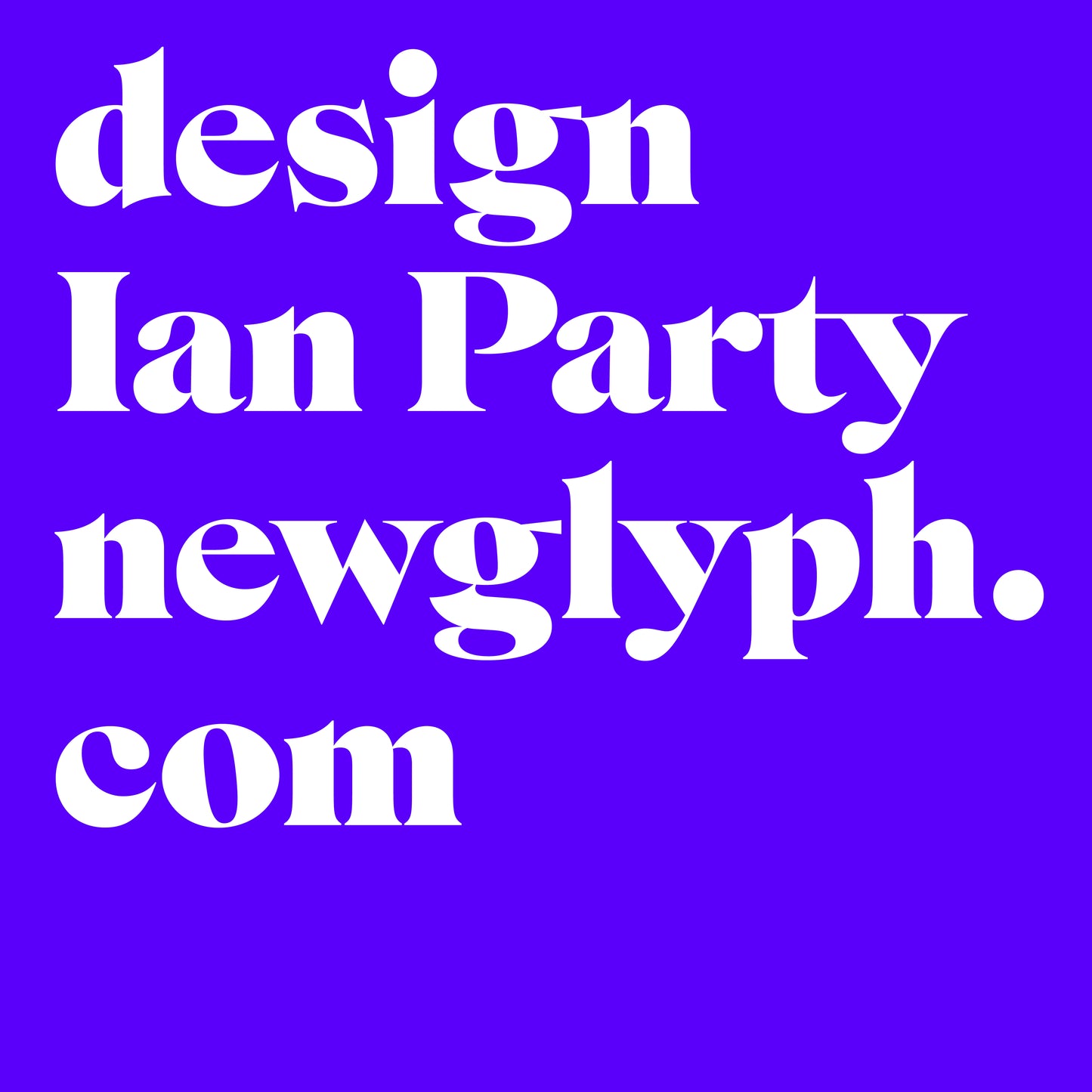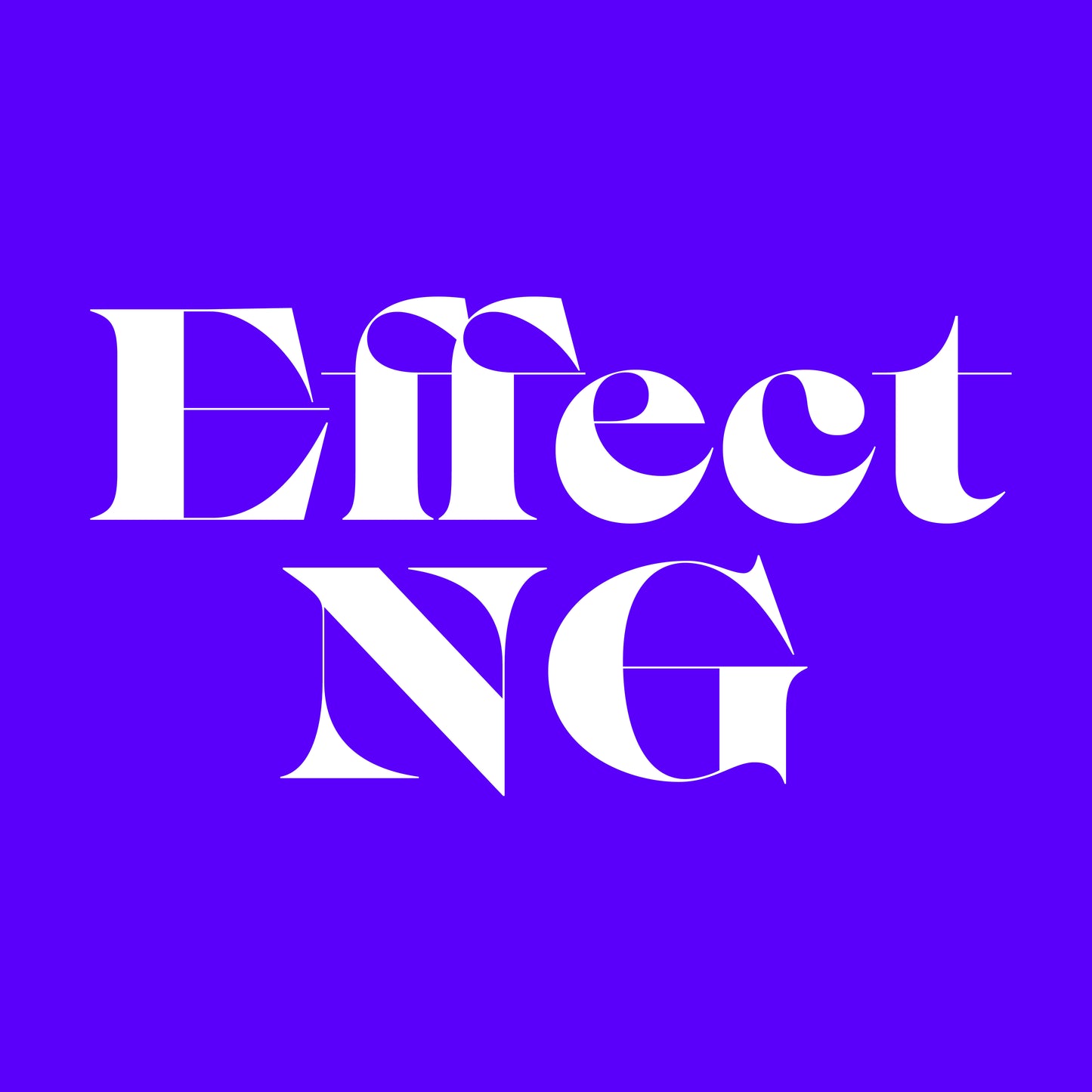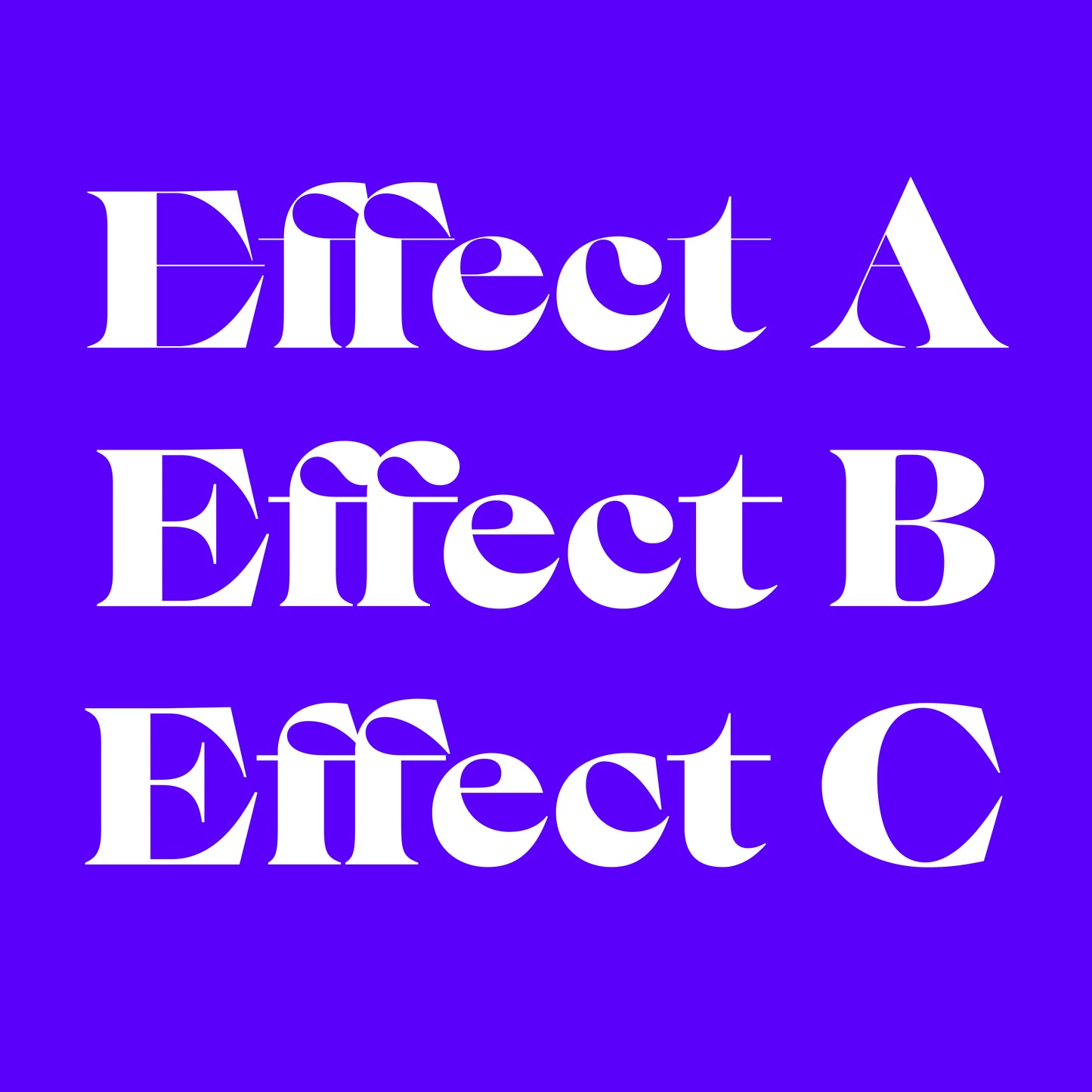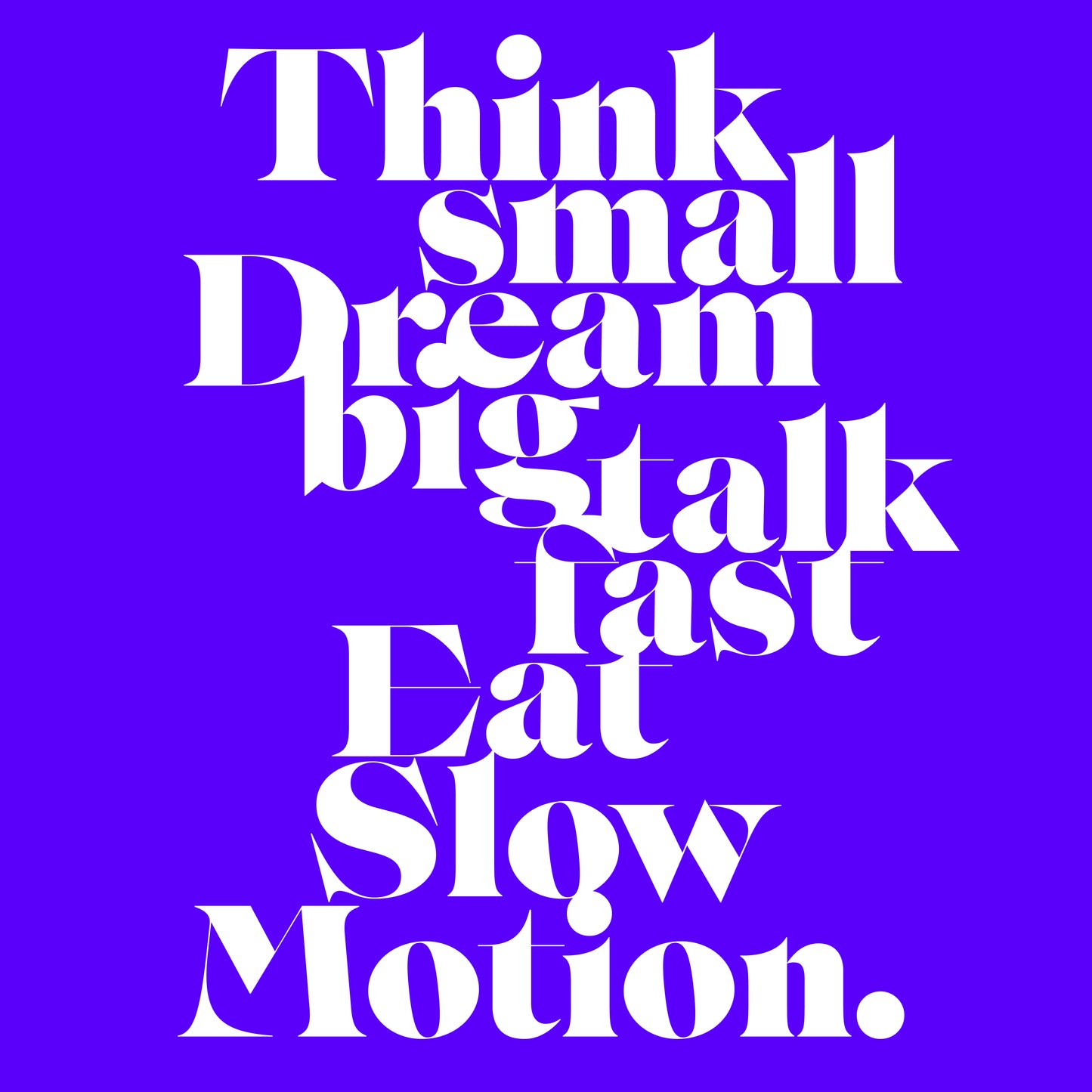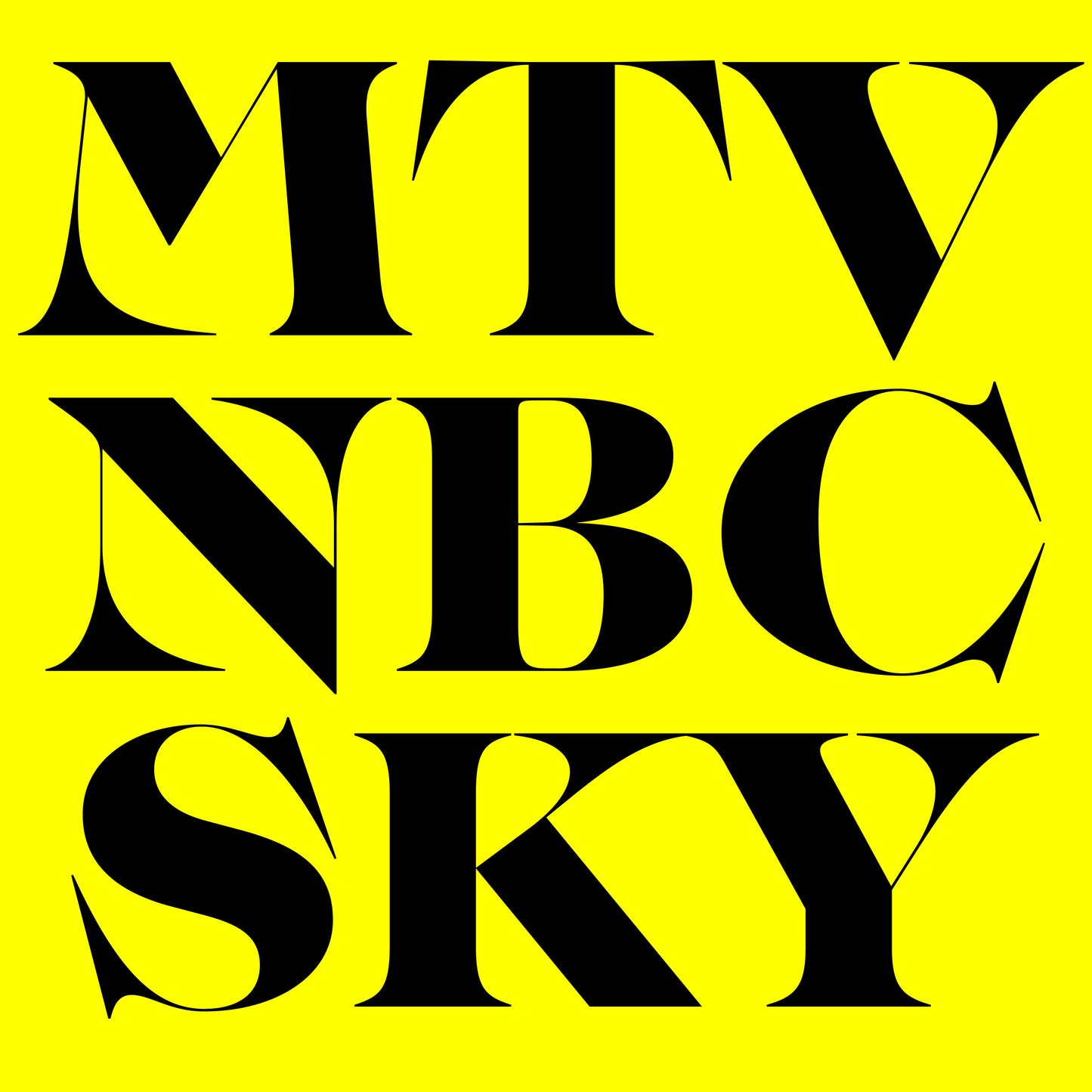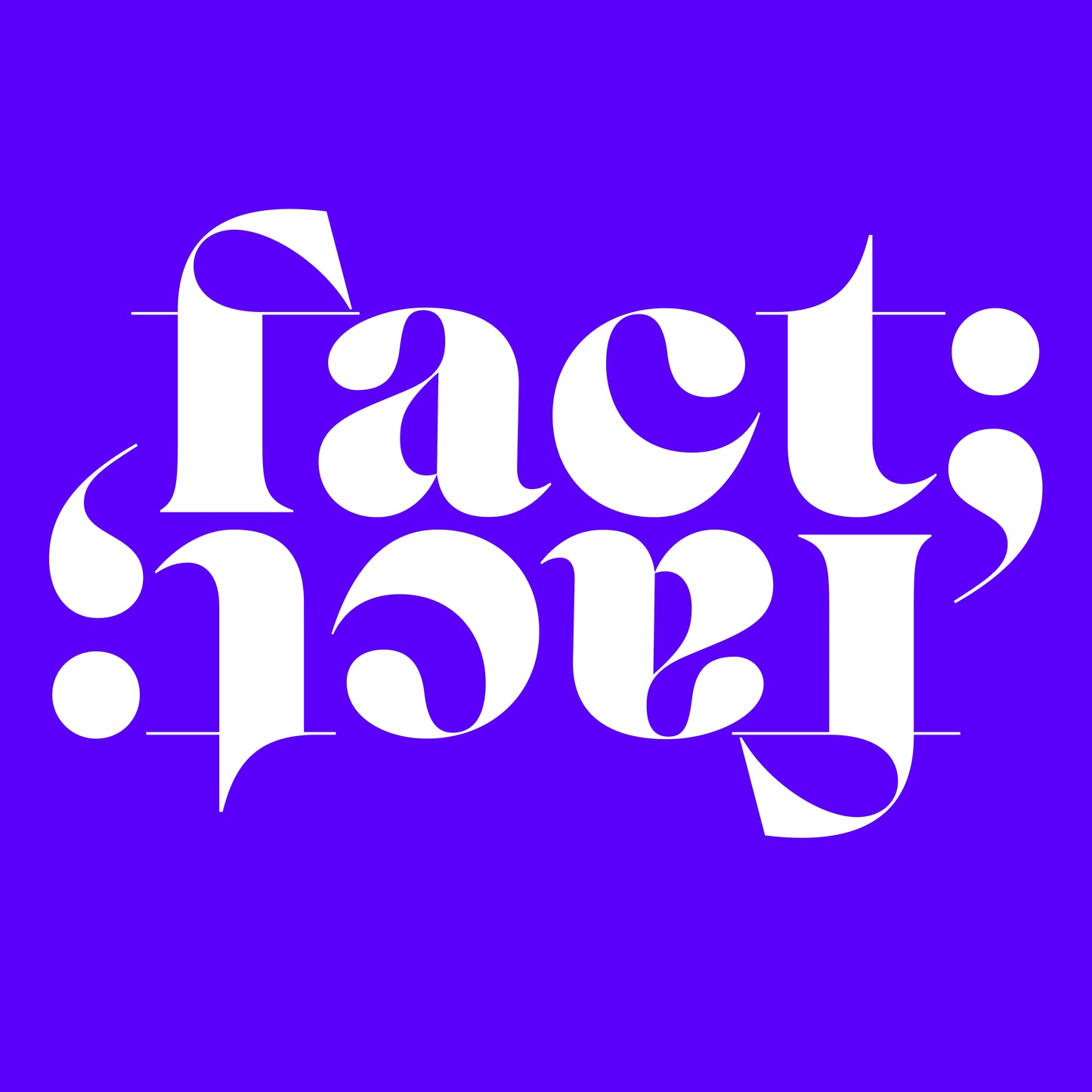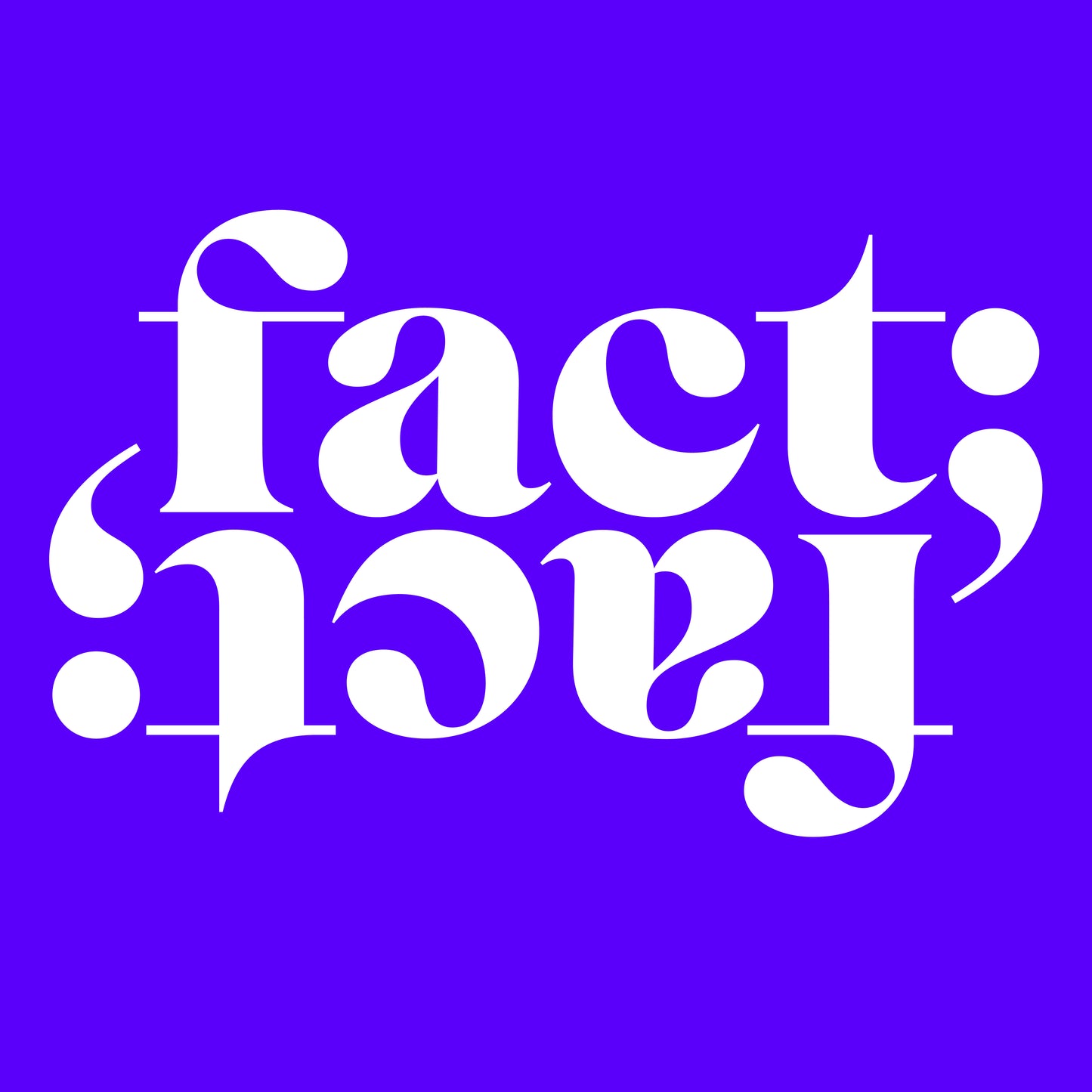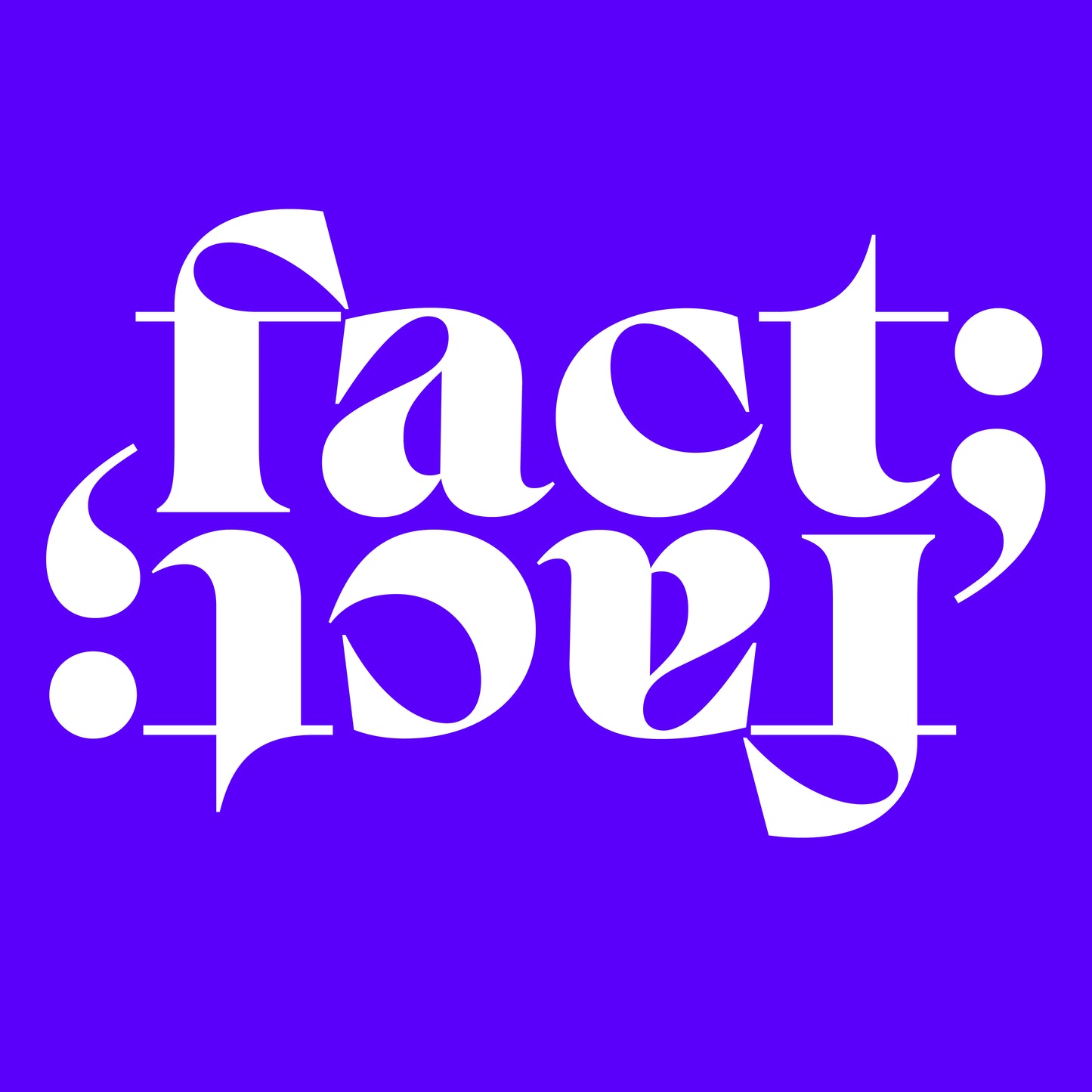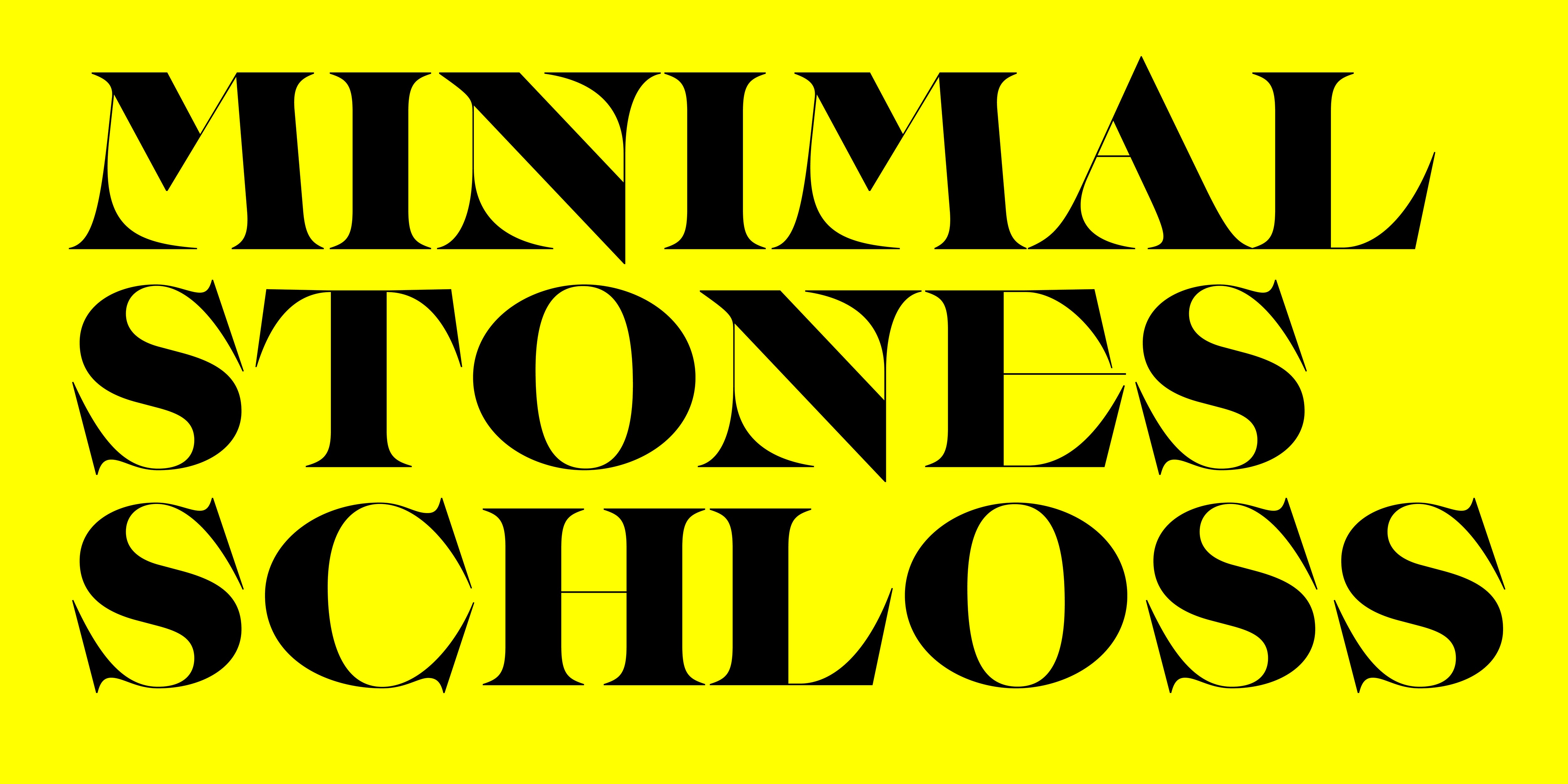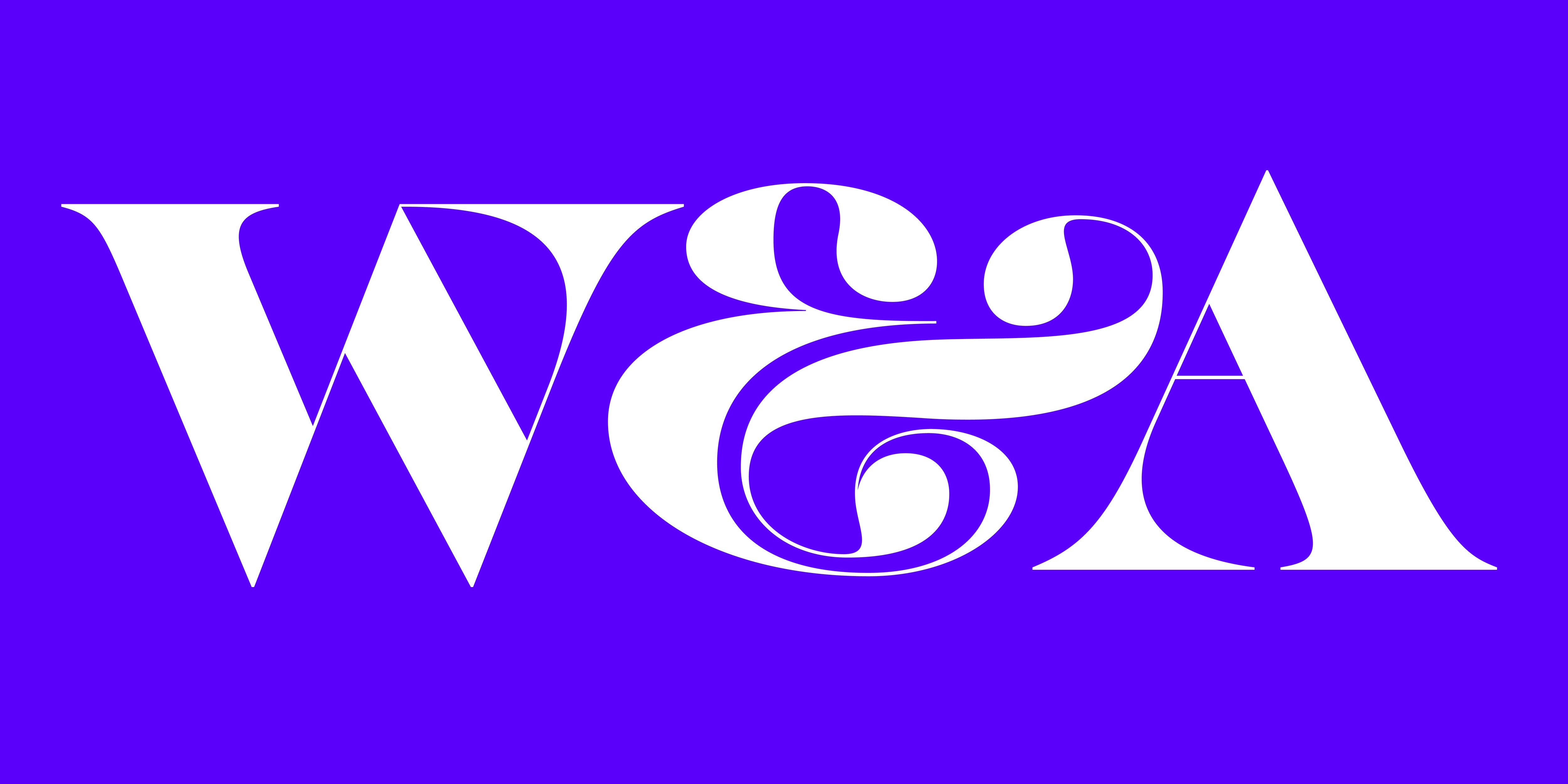
Effect NG
Effect NG, designed by Ian Party,  is a high-impact display typeface with three styles that plays with extremes—bold, chunky strokes meet razor-sharp details for a look that’s both striking and sophisticated. Inspired by classic display fonts and calligraphic forms, its dynamic contrasts create a bold visual rhythm that demands attention.
Designed for statement-making headlines, branding, and editorial projects, Effect NG brings energy and attitude to any layout. Available in OTF and WOFF2 formats, it’s ready to level up your design game.